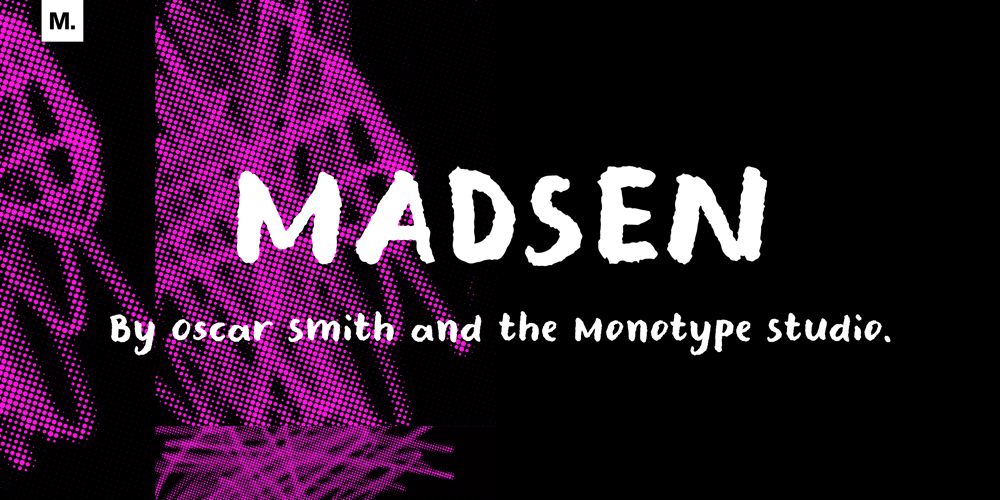
Madsen Font Family was designed by Oscar Smith and published by Monotype. Madsen contains 1 styles and family package options. With chunky, confident letters, Madsen is rough and ready, but with an element of pizzazz. This script was drawn with a wet brush pen and rough paper to create coarse edges and an uneven baseline that showcase its handwritten, charismatic aesthetic. Madsen is a bold script, that has some contrast and a lot of natural charm.